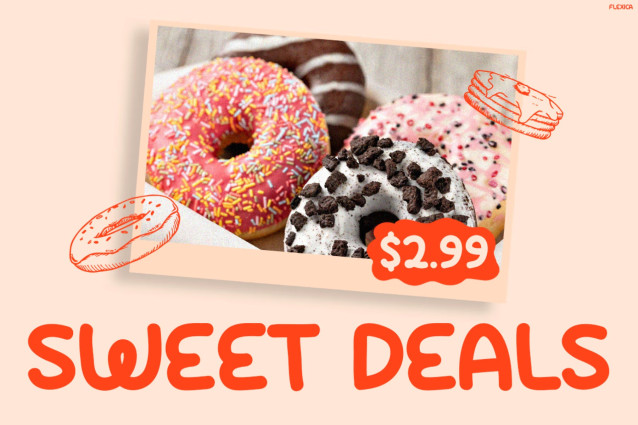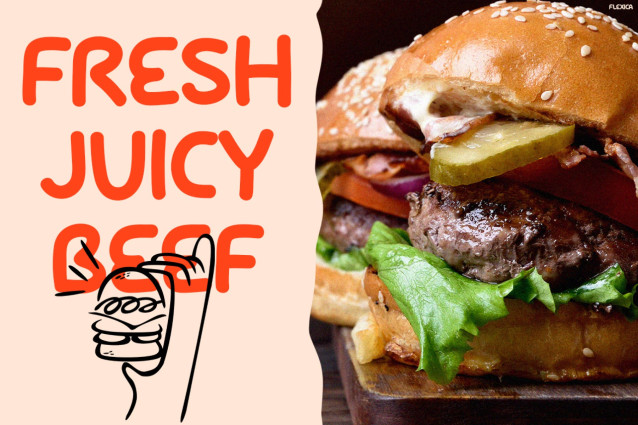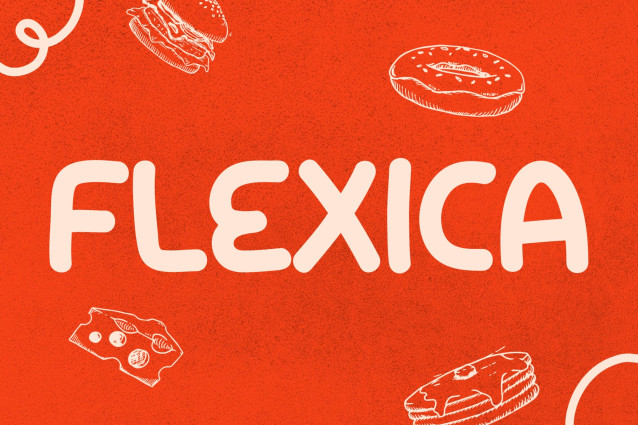
Flexica Font
Flexica instantly grabs attention with its chunky, hand-drawn curves and cheerful energy. Moreover, the letterforms feel organic and slightly bouncy, so every word looks friendly and inviting. In addition, its soft edges and bold presence create a perfect balance between readability and fun. As a result, this font stands out in vibrant layouts, especially for food branding, menus, packaging, and social media visuals.
Kids Font Flexica brings a warm, delicious vibe into every design. For example, from “Tasty Mood” posters to “Freshly Made” bakery visuals, it enhances appetizing imagery with a playful tone. Furthermore, its strong visual weight ensures your message stays clear across both digital and print media. Not only that, but it also performs consistently in headlines and short phrases, making your design more impactful and engaging.